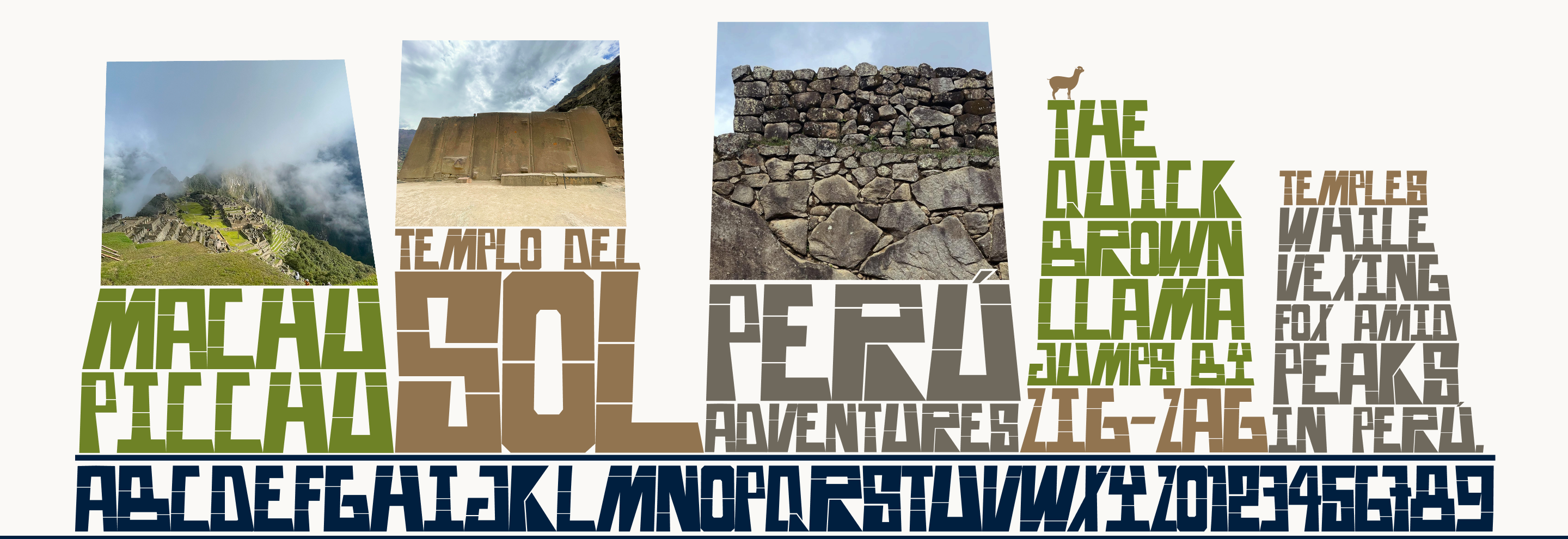
AURA SO-N-SO
About AURA
Aura is a display typeface inspired by the monumental Inca architecture of Perú. It reflects an observation of masonry found at historic sites like Machu Picchu and Templo del Sol—the meticulous interlocking of stones, the grandiosity of scale, and the profound intentionality of ancient form.
Typeface Aura, is an unplanned typographic expression of admiration for these wonders, and a transcendent aura that has withstood the weight of centuries. It represents a personal journey of processing love: a transition from emotion to thought, and from thought to form.